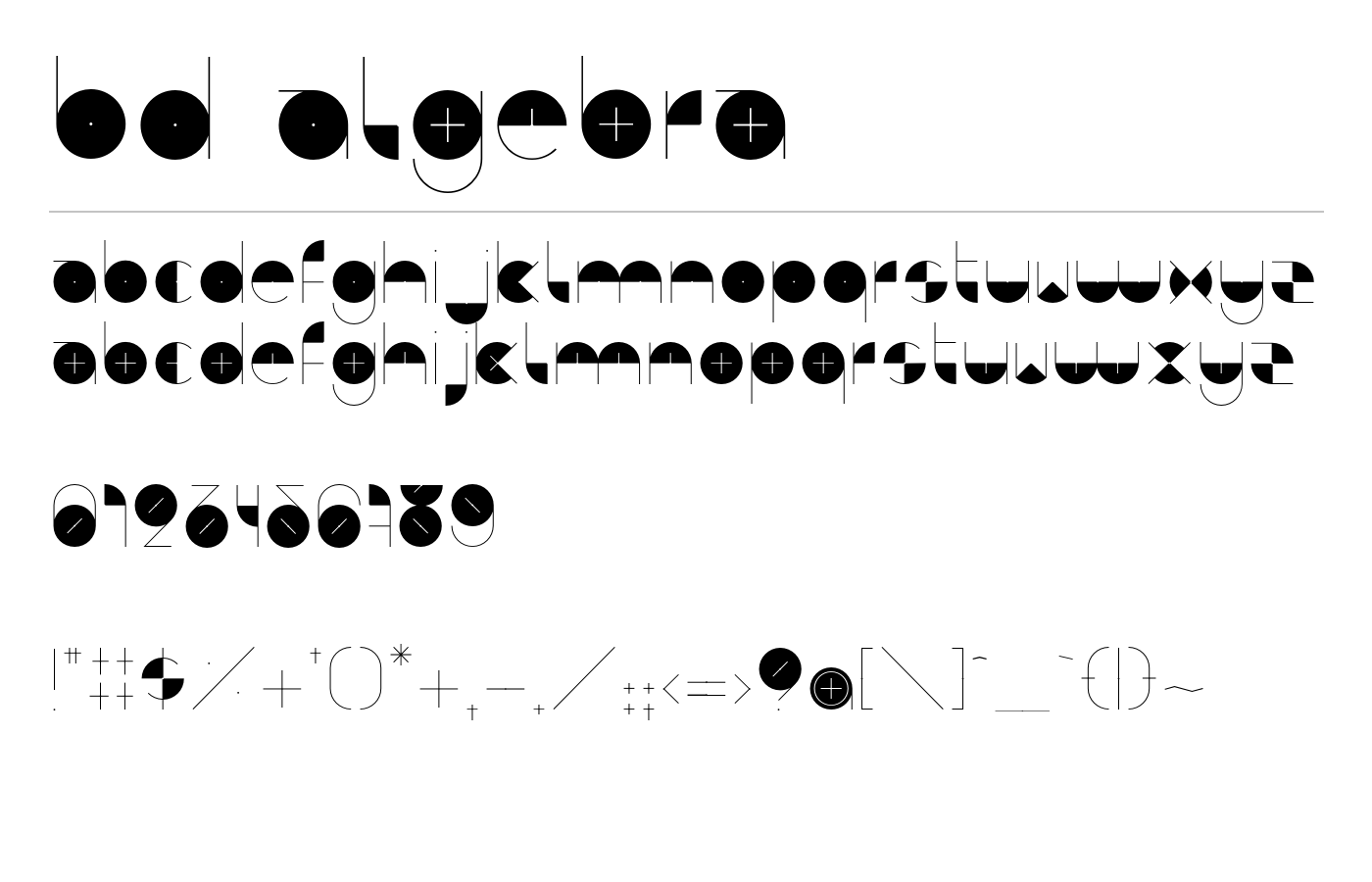
BD Algebra is a modern, geometric sans serif font with a distinctively experimental and abstract style. It features a high contrast between solid black shapes and thin, delicate lines that create a futuristic, almost technological feel, making it ideal for avant-garde branding, creative logos, and digital design projects seeking a bold yet sophisticated look. This font’s unique letterforms and striking visual rhythm work best in large display settings where its artistic character can truly stand out.
BD Algebra Font
About BD Algebra Font